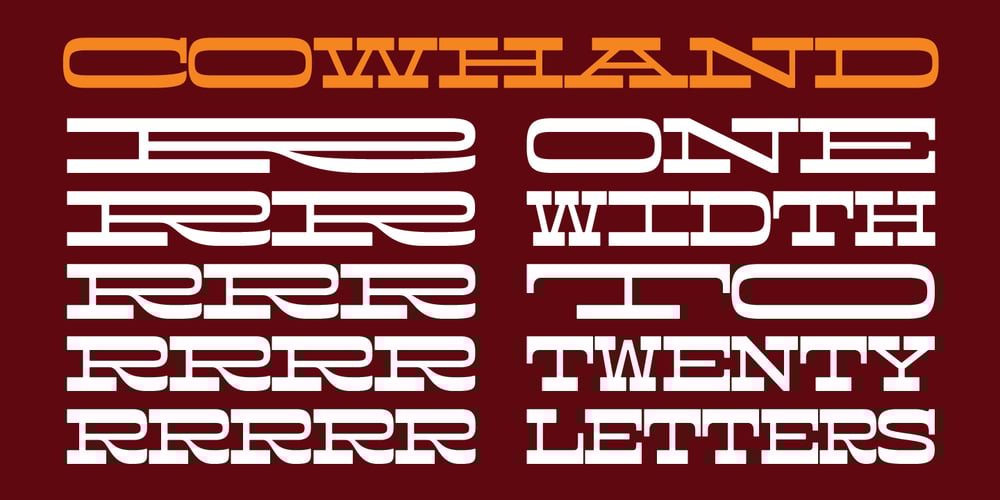
Cowhand
Cowhand font
Cowhand Font Family was designed by Toshi Omagari and published by Monotype. Cowhand contains 1 styles and family package options. Cowhand is a display typeface designed by Toshi Omagari to keep words at one specific width. Words of one letter will have one very wide character, words of two letters will have characters of half that width and so forth. At the maximum of 20-letter words, characters become very tightly compressed. The design of the Cowhand typeface is inspired by western style block printing with reverse stress that is characterised by chunky slab serifs. This Lite version of the typeface was designed as part of a font marathon over the course of 3.5 days in Monotype’s NY office. Please Note: these “Lite” fonts are offered with a limited character set. Monotype is proud to support Room to Read’s work in literacy and girls’ education through our font marathon initiative.